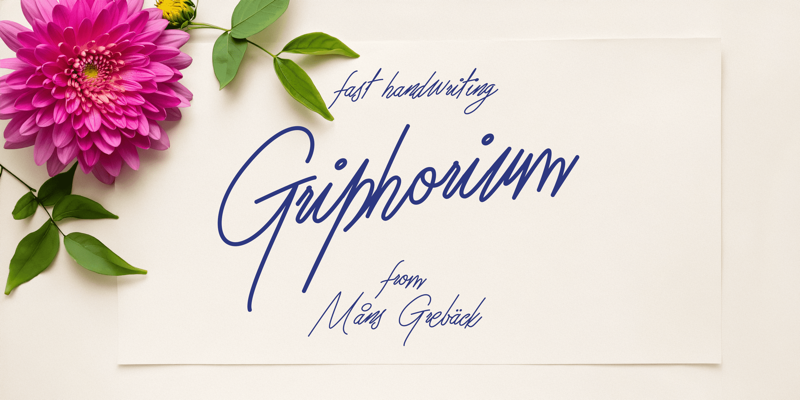
Griphorium
Måns Grebäck · Regular · Griphorium
NOTE: This font is for PERSONAL USE ONLY! To purchase a commercial license, visit: https://www.mansgreback.com/product/griphorium Griphorium is a fast handwriting script with a clear sense of movement. It feels written in one go, where the hand rarely slows down and each letter follows the next with natural momentum. The shapes are slightly sharp and energetic, avoiding softness in favor of precision and flow. For questions, please visit https://mansgreback.com/faq